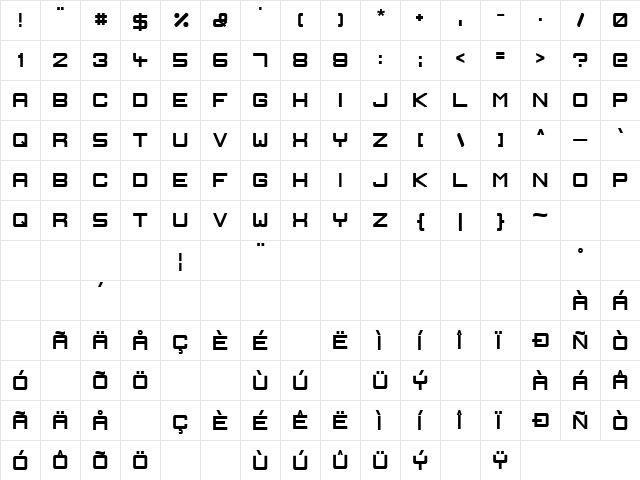
Ignis et Glacies Sharp Bold
| Designer | Zdenek Gromnica aka FutureMillennium |
Design Context for Ignis et Glacies Sharp Typeface
Ignis et Glacies Sharp is a composed and adaptable typeface that performs quietly and consistently across a wide range of design contexts. The heavy weight commands attention and anchors typographic hierarchies.